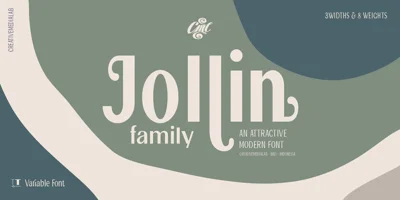
Jollin Family
Jollin Family Font
The Jollin Family Font is perfect for family-oriented business branding, children's entertainment companies, wholesome food packaging, community center signage, educational institution materials, family restaurant menus, playful toy company logos, cheerful daycare centers, and heartwarming marketing campaigns that require friendly, inclusive typography with multi-generational appeal.
What makes the Jollin Family Font so exciting is its extraordinary ability to capture the essence of family unity, generational connection, and the universal values that bring people together across all ages and backgrounds. This heartwarming typeface embodies the spirit of togetherness and shared experiences, featuring versatile letterforms with balanced proportions and welcoming character details that create an immediate sense of comfort, belonging, and inclusive community spirit. The font's family-focused design and universal appeal make it the perfect choice for brands and projects that celebrate human connection, intergenerational relationships, and the timeless values that strengthen families and communities worldwide.
The Jollin Family Font family typically includes multiple weights from light to black, along with various stylistic options, playful alternates, and complementary design elements that provide designers with comprehensive tools for creating cohesive family-centered branding systems and inclusive visual communications across diverse generational applications.
Family businesses and community organizations consistently choose Jollin Family Font for its unmatched ability to convey authentic family values and inclusive community spirit. This versatile typeface represents the perfect fusion of professional quality and heartfelt warmth, offering brands a powerful tool for building meaningful connections with multi-generational audiences who value tradition, togetherness, and genuine care for family wellbeing. Whether you're developing branding for family restaurants, creating educational materials for all ages, designing community event promotions, or crafting inclusive social media campaigns, this font delivers the warmth and authenticity that family-focused communications require.
The lovingly crafted letterforms of the Jollin Family Font showcase balanced proportions and welcoming styling details that ensure excellent readability while creating a sense of comfort and accessibility across all family applications. The font's inclusive character and multi-generational appeal create immediate associations with trustworthiness, care, and the enduring values that strengthen family bonds and community connections.
Family brand designers and community marketers appreciate the font's comprehensive versatility and age-inclusive design principles, which enable the creation of typography that resonates with everyone from children to grandparents while maintaining the professional standards essential for building credibility with diverse family audiences.
For organizations seeking to establish genuine connections with family-oriented communities and communicate authentic care for multi-generational values through their visual identity, the Jollin Family Font provides an exceptional typography solution. Its family-centered foundation and proven inclusive appeal make it particularly suitable for family entertainment venues, educational institutions, community services, and businesses that prioritize family values and intergenerational connection.
The font's optimization for both traditional family print materials and modern digital family platforms ensures consistent heartwarming impact across all family communication channels, while its timeless inclusive aesthetic provides enduring value for family-focused brand systems requiring typography that authentically represents the eternal importance of family bonds and community togetherness in today's interconnected world.